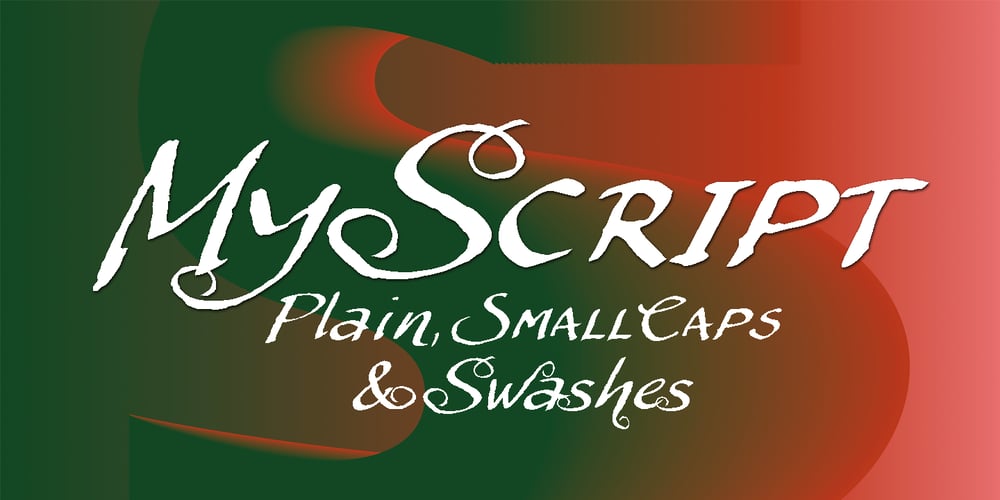
My Script Font Family was designed by Gert Wiescher and published by Wiescher Design. My Script contains 3 styles and family package options. MyScript is exactly that: my script; only this one is for everybody’s use! Originally I designed it as a Christmas present for my friends and clients; they liked it. So I thought other people might like it as well. I cleaned it up just enough so that it did not lose its character. And, of course, I made all glyphs so that it is really useful as an everyday, unpretentious script. And I added a small cap version and a swashes version to give you even more reason to use it. It turned out a really readable script. Your scribe, Gert Wiescher